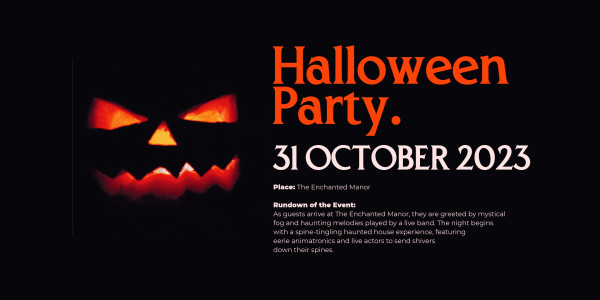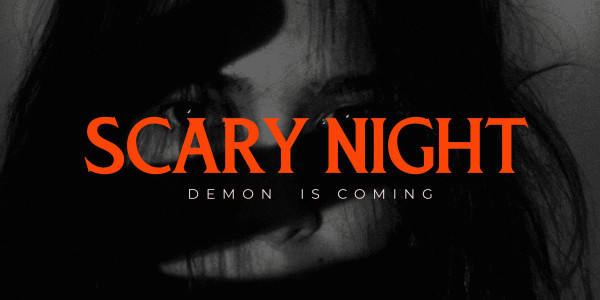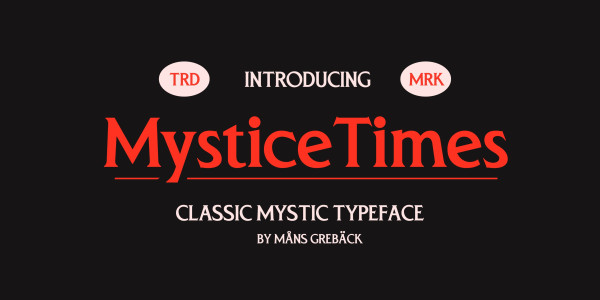
Mystice Times Font
Mystice Times Font, Channeling the enchanting ambiance of 80s thriller movies, MysticeTimes echoes tales of mystery wrapped in professionalism.
Its characters, though rooted in the cinematic charm of yesteryears, are tinged with an unpredictable, slightly eccentric flair.